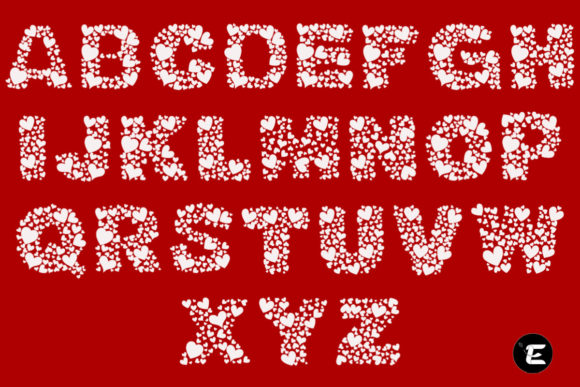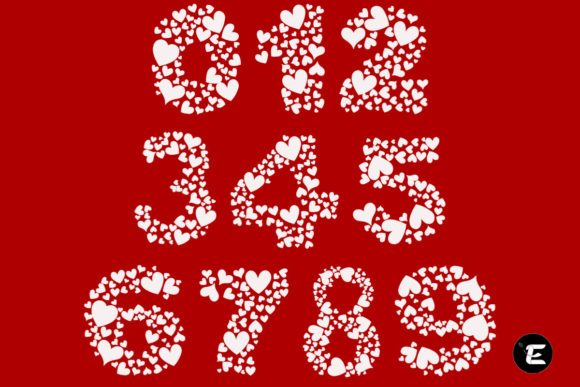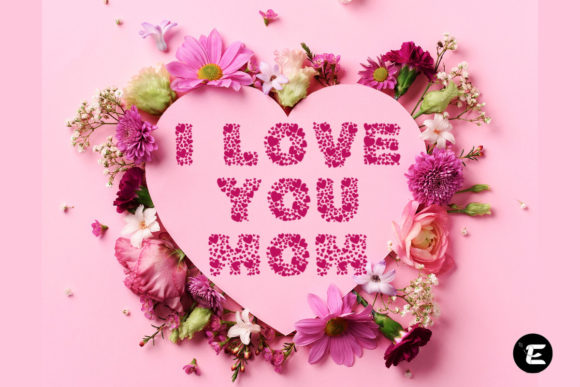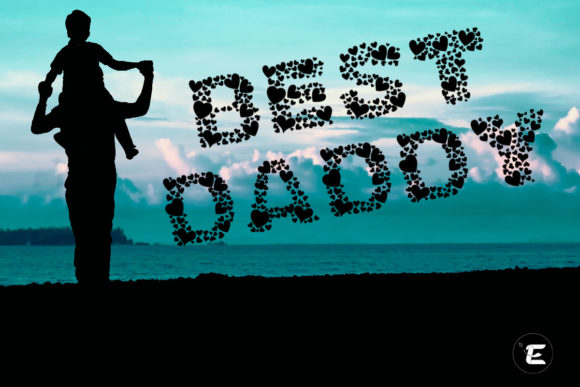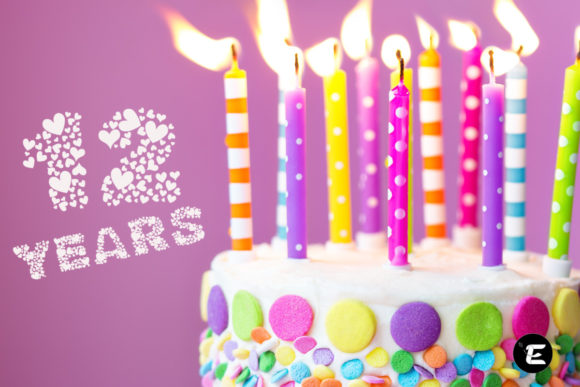
Heart Font: The Sweetest and Most Festive Decorative Font for Your Designs
Are you looking for a font that can add a touch of warmth and festivity to your designs? Look no further than the Heart Font! This sweet and charming decorative font is perfect for crafts, digital design, presentations, greeting cards, and any other project that requires a personal and loving touch.
What Makes Heart Font So Special?
Heart Font is a unique and eye-catching font that is sure to capture the hearts of designers and crafters alike. Its distinctive and whimsical design makes it perfect for a wide range of projects, from Valentine’s Day cards and wedding invitations to DIY crafts and digital art. Whether you’re looking to add a touch of romance, playfulness, or festivity to your designs, Heart Font is the perfect choice.
Perfect for Crafts and DIY Projects
If you’re a crafter or DIY enthusiast, you’ll love Heart Font! This font is perfect for adding a personal touch to your handmade projects, such as scrapbooking, card making, and journaling. Its sweet and charming design will make your projects stand out and add a touch of warmth and personality to your creations.
Ideal for Digital Design and Presentations
Heart Font is not just limited to crafts and DIY projects. It’s also perfect for digital design and presentations! Whether you’re creating social media graphics, blog posts, or presentations, this font will add a touch of festivity and playfulness to your designs. Its clear and readable design makes it perfect for titles, headings, and text overlays.
Great for Greeting Cards and Stationery
If you’re looking for a font that’s perfect for greeting cards and stationery, Heart Font is the way to go! This font is ideal for creating beautiful and heartfelt cards for special occasions, such as Valentine’s Day, birthdays, and weddings. Its sweet and charming design will make your cards stand out and show your loved ones how much you care.
Why Heart Font Should Be Your Go-To Font
So why should Heart Font be your go-to font? Here are just a few reasons:
- Unique and eye-catching design: Heart Font has a distinctive and whimsical design that will make your projects stand out.
- Perfect for a wide range of projects: Whether you’re working on crafts, digital design, presentations, or greeting cards, Heart Font is the perfect choice.
- Easy to read and use: Heart Font is clear and readable, making it perfect for titles, headings, and text overlays.
- Adds a touch of warmth and festivity: Heart Font has a sweet and charming design that will add a touch of warmth and festivity to your projects.
How to Use Heart Font in Your Designs
Using Heart Font in your designs is easy! Here are a few tips:
- Pair it with other fonts: Heart Font looks great paired with other fonts, such as sans-serif fonts or script fonts.
- Use it for titles and headings: Heart Font is perfect for titles and headings, adding a touch of festivity and playfulness to your designs.
- Add it to your digital design toolkit: Heart Font is a versatile font that can be used in a wide range of digital design projects, from social media graphics to presentations.
In conclusion, Heart Font is a sweet, festive, and warm decorative font that’s perfect for designers and crafters alike. Its unique and eye-catching design makes it perfect for a wide range of projects, from crafts and DIY projects to digital design and presentations. With its clear and readable design, Heart Font is easy to use and adds a touch of warmth and festivity to any project. So why not give Heart Font a try and make it your go-to font for all your design needs?